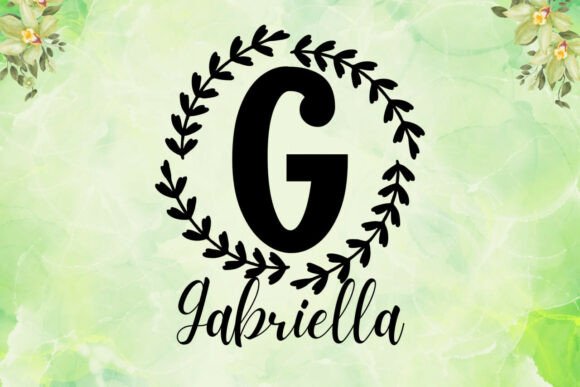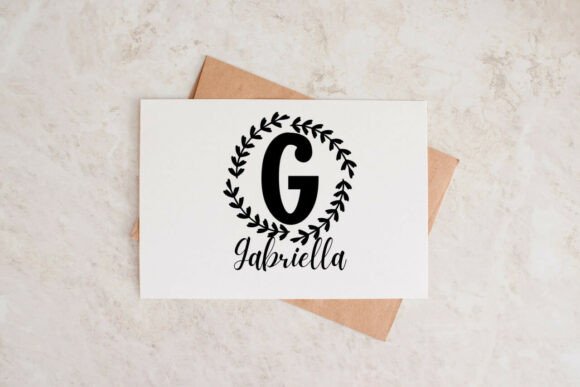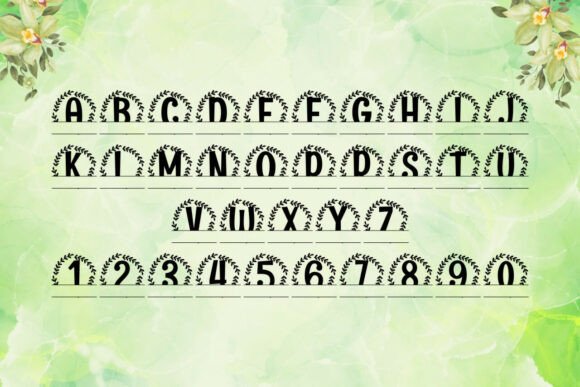
Introduction to Harborcrest Monogram Font
As designers, we’ve all been there – staring at a blank page, trying to find the perfect font to elevate our creative project. The search can be overwhelming, but sometimes, it’s the simplest of elements that make all the difference. For those seeking a high-quality design resource that exudes coastal elegance, the Harborcrest Monogram Font is a game-changer.
With its smooth strokes and generous counters, this font transforms simple initials into poised, premium emblems that demand attention. Whether you’re working on a wedding suite, boutique logo, or keepsake gift, the Harborcrest Monogram Font delivers exceptional readability and a level of sophistication that’s hard to match.
As a valuable resource for designers, this font offers a range of applications, from delicate jewelry cards to large entry displays, all with a consistent, high-end finish. And with its transparent background, it’s the perfect choice for creative projects that require a touch of understated elegance.
Key Features of Harborcrest Monogram Font
- High-quality design resource for creative projects, offering a unique and elegant touch.
- Perfect for designers looking for a stylish and sophisticated monogram font to elevate their designs and projects.
Honest Review: Harborcrest Monogram Font
As a designer, I’m always on the lookout for high-quality design resources that can elevate my creative projects. Recently, I stumbled upon the Harborcrest Monogram Font, and I’m excited to share my honest review with you.
Here are some things that work well with this font: ✨ Unique Monogram Design: The Harborcrest Monogram Font offers a distinctive and stylish monogram design that can add a touch of sophistication to any project. ✨ High-Quality Graphics: The font is well-designed and has a clear, high-quality appearance, making it perfect for print or digital use. ✨ Free Download: I appreciate that this font is available for free download, making it an excellent resource for designers on a budget.
One limitation of the Harborcrest Monogram Font is that it may not be suitable for all design projects, particularly those that require a more traditional or formal font style. Additionally, the font may not be available in as many languages as some other design resources. ⚠️
Overall, I’m impressed with the Harborcrest Monogram Font and would highly recommend it to designers looking for a unique and stylish monogram design. With its high-quality graphics, transparent background, and free download, it’s an excellent resource to have in your design arsenal.
The Harborcrest Monogram Font is a high-quality design resource that can elevate your creative project with its unique and elegant style. With its transparent background, you can easily layer it over other design elements to create a visually appealing composition.
To get the most out of the Harborcrest Monogram Font, use it sparingly to create a sense of elegance and sophistication. You can also combine it with other design elements to create a unique and eye-catching composition.
The Harborcrest Monogram Font is perfect for:
- Personalized gifts and merchandise
- Brand identity and marketing materials